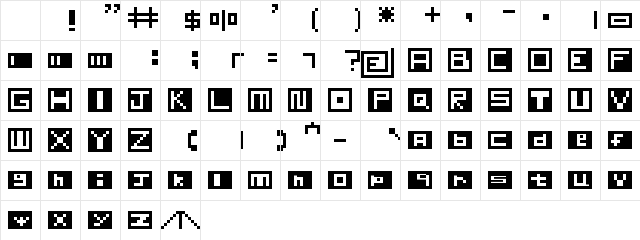
Complete insider Regular glyph index. Displaying only characters natively supported by insider Regular font.
insider is a composed and adaptable typeface that performs quietly and consistently across a wide range of design contexts.